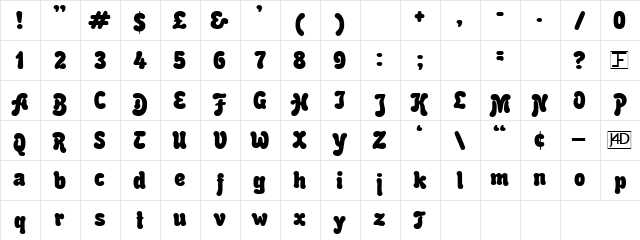
Rounded Informal Normal
Design Context for Rounded Informal Typeface
Rounded Informal uses gentle rounded endings to create a warm, inviting typographic personality — less corporate than geometric sans, more refined than playful display fonts.
Well-suited to UI design, mobile interfaces, and any brand that wants approachability without sacrificing clarity.
Font Pairing: Pairs well with a rounded or humanist sans for body copy, maintaining the friendly tone without relying on Rounded Informal to carry extended reading.
Pro Tip: Use Rounded Informal for UI elements, app interfaces, and anywhere a friendly, approachable tone needs to be maintained without sacrificing clarity.